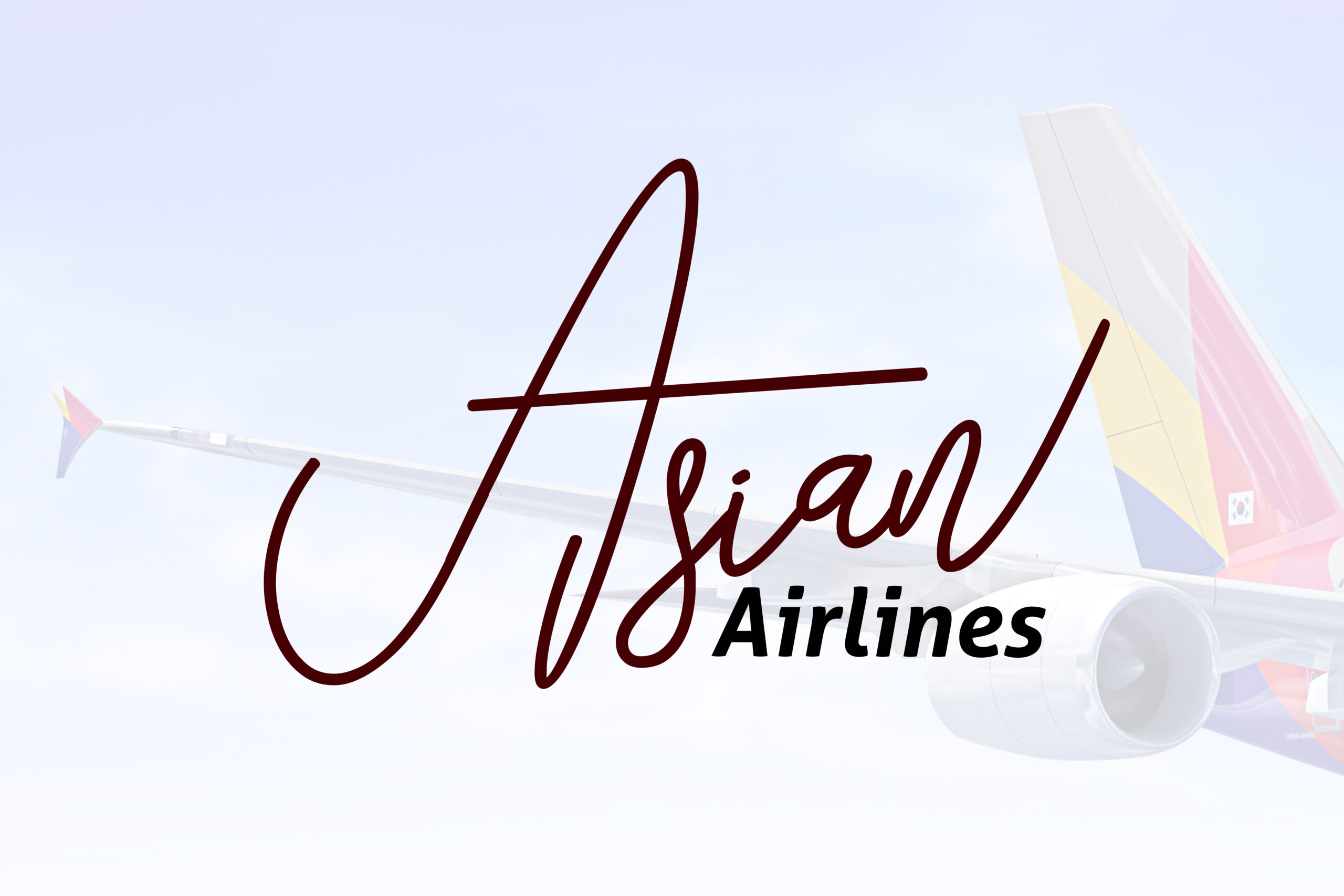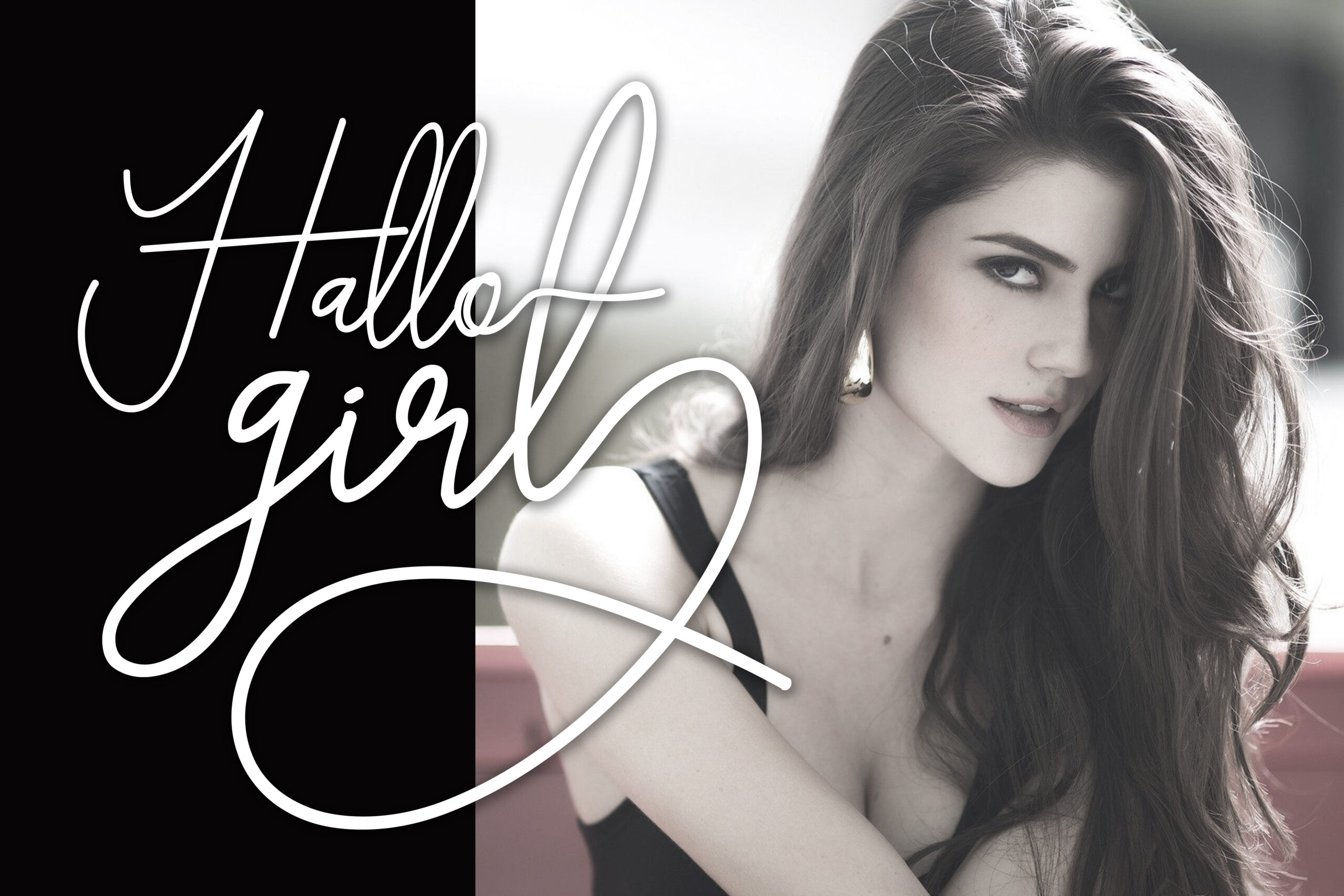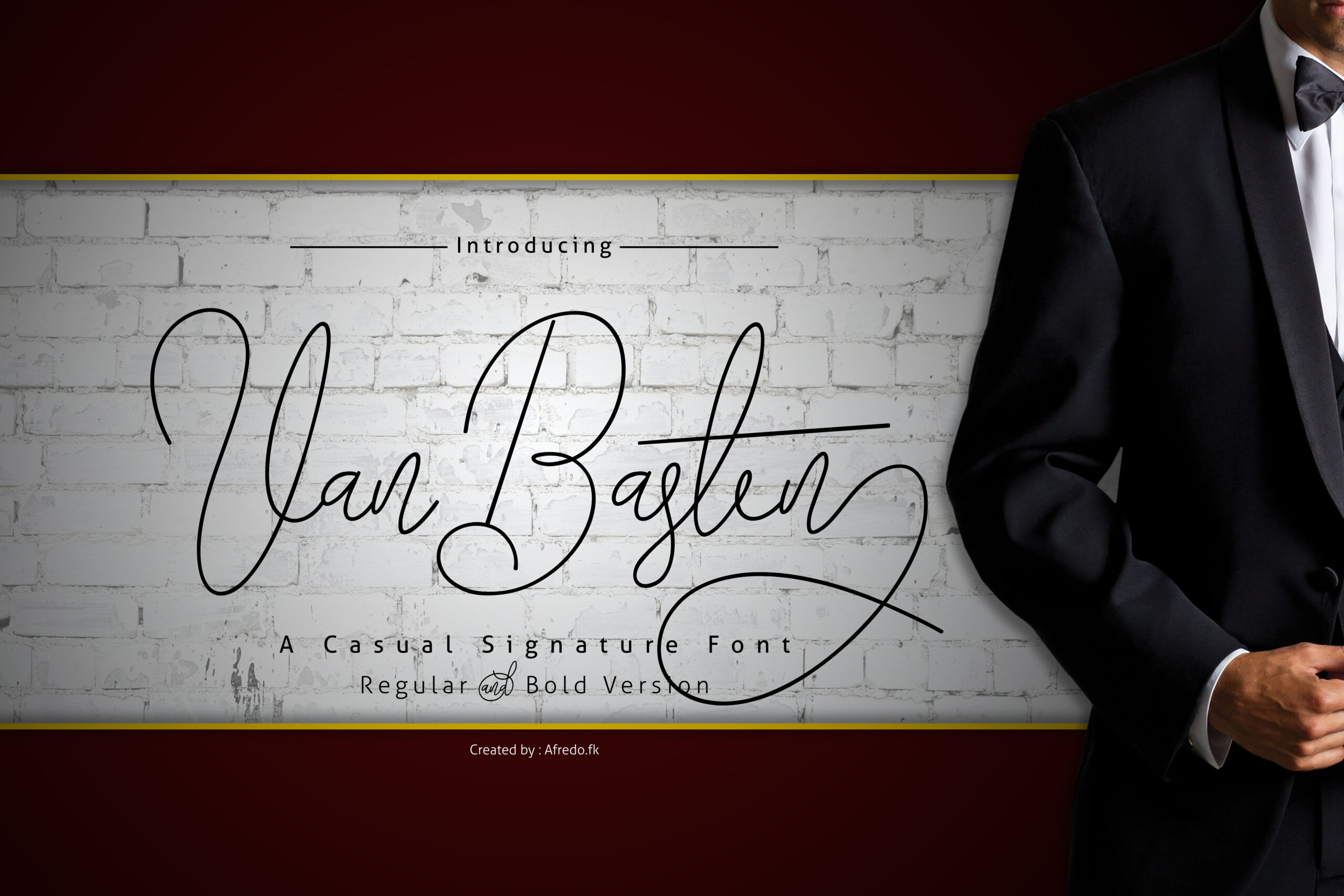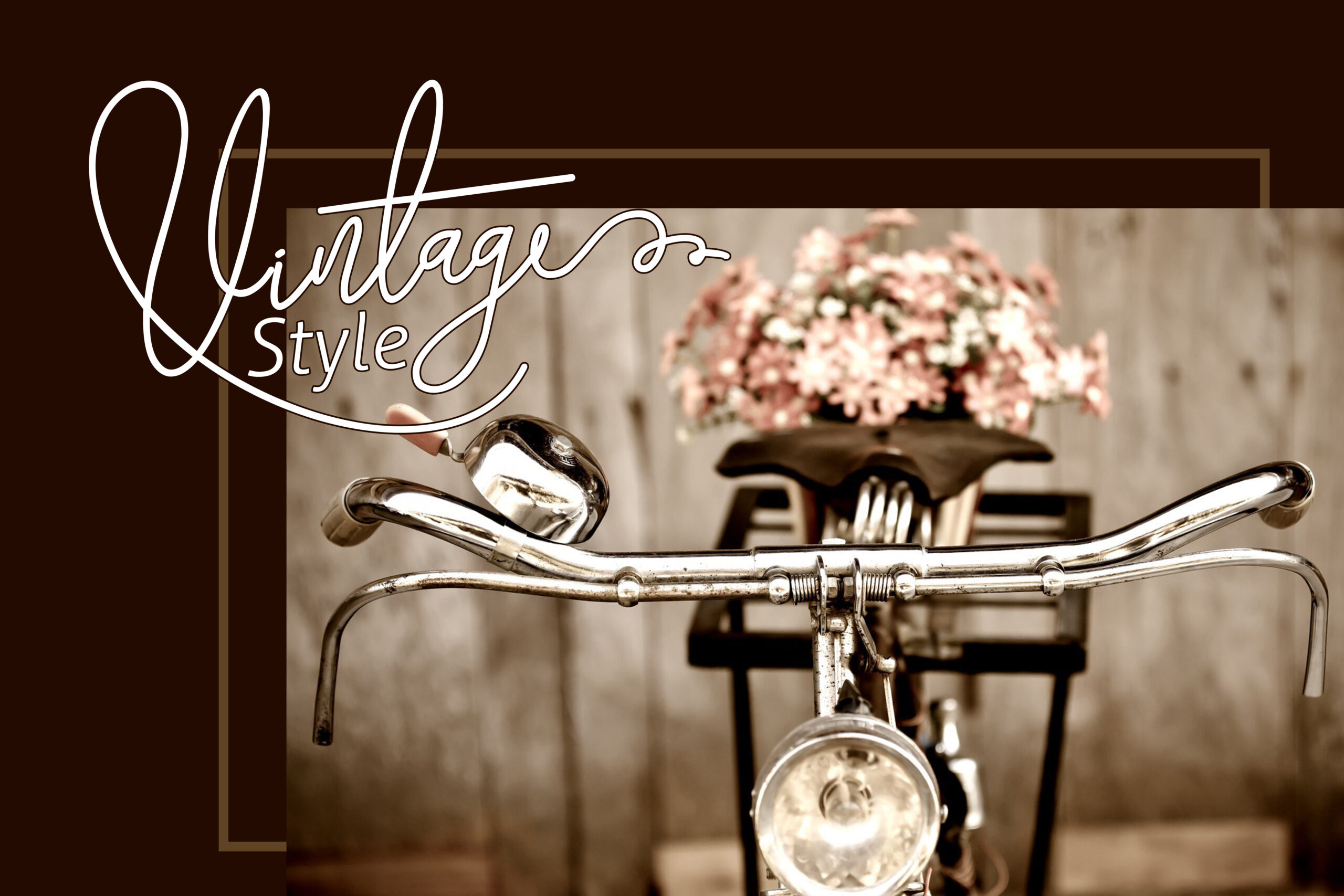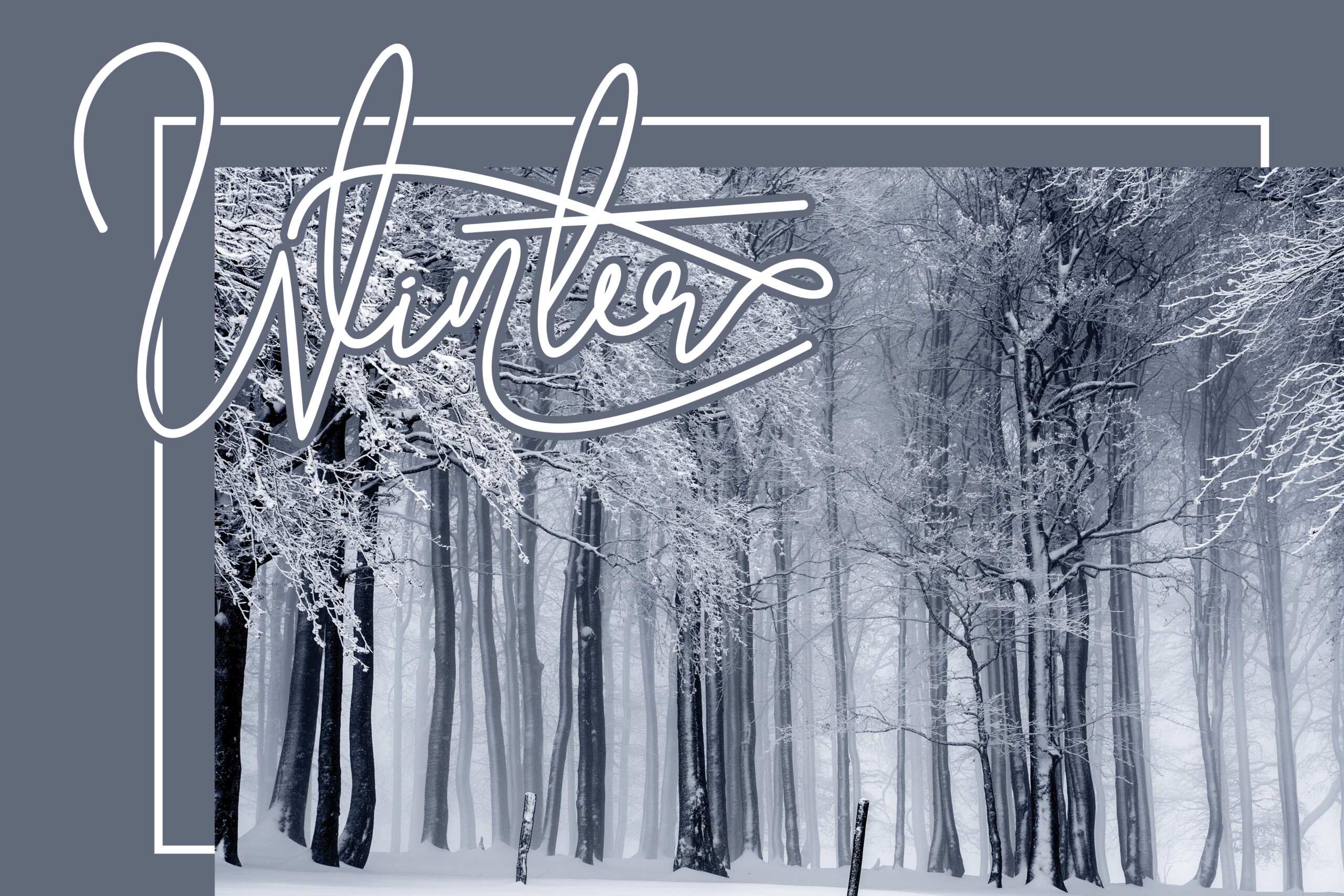
Van Basten Font
About Van Basten Font
Van Basten is a beautiful monoline script font, suitable for modern and sensible designs. This handwritten font is a great way to give your designs a clean yet elegant typographic approach, and comes with tons of character alternates for truly unique font styling.